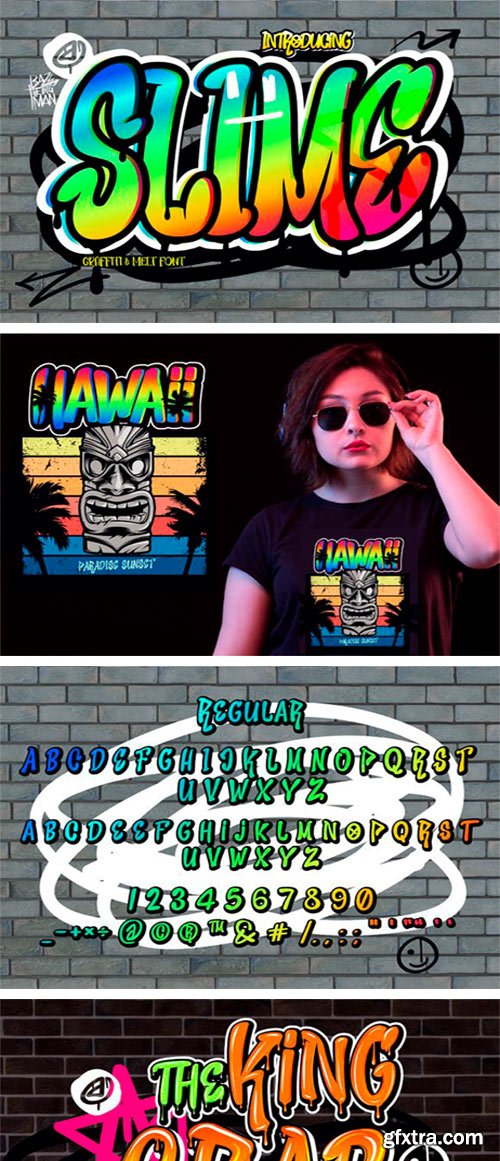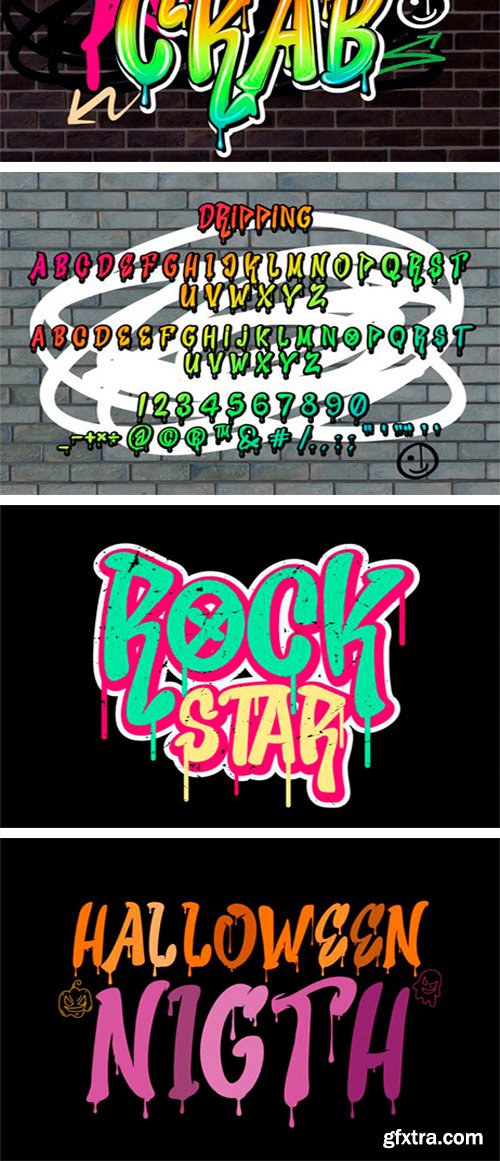
Slime Font
Slime is a cool and graffiti styled display font, featuring a street art vibe. This font is suitable for designs such as t-shirts, sportswear, logos, advertisements, clothing, and more.